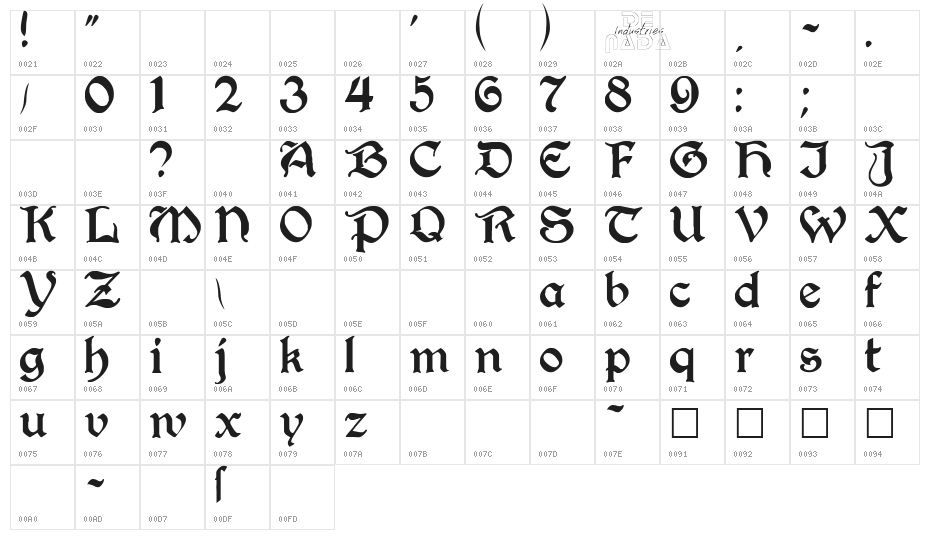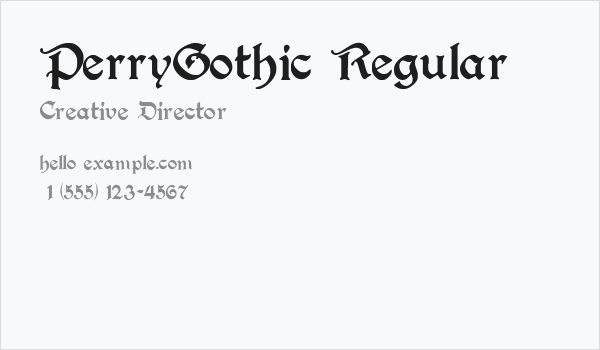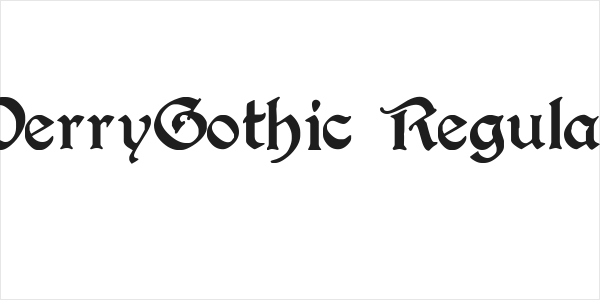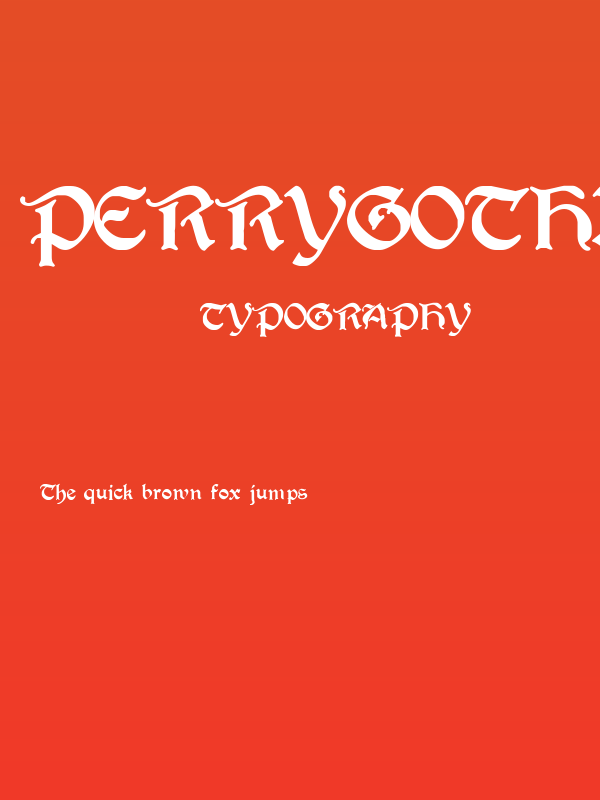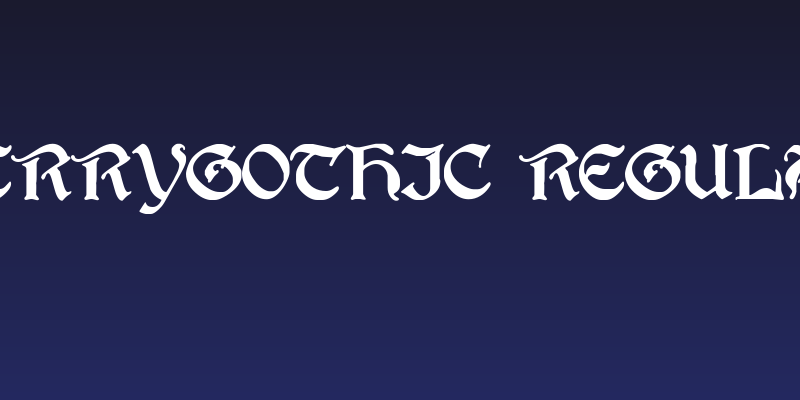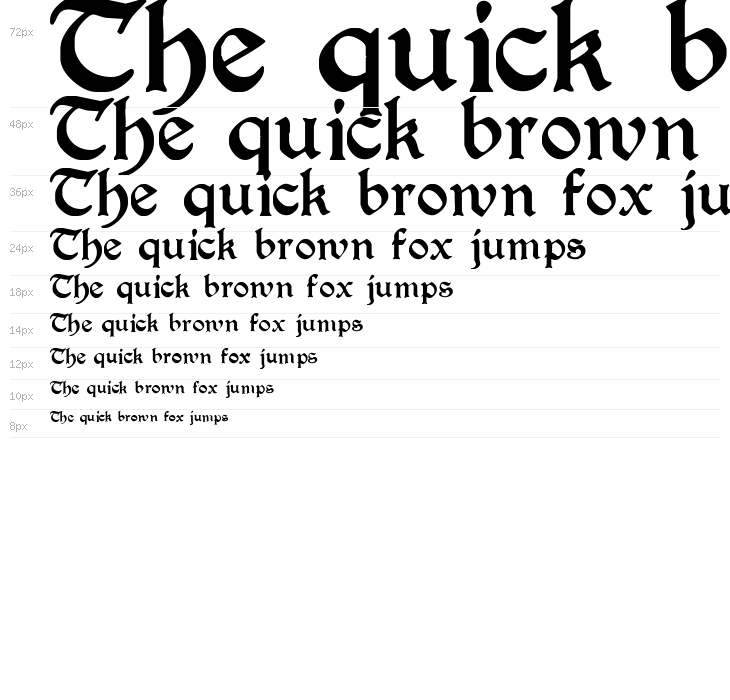
PerryGothic Regular Font
PerryGothic Regular Description
This font embodies a classic Gothic style with a modern twist, featuring sharp, angular serifs and a bold presence. The uppercase letters are particularly striking, with intricate detailing that adds a sense of elegance and historical depth. The lowercase letters maintain a consistent style, offering a harmonious balance with the uppercase set. Numbers are bold and clear, making them suitable for impactful displays. Special characters are designed with the same attention to detail, ensuring a cohesive look across all elements. The overall aesthetic is both traditional and contemporary, making it versatile for various design needs.
| Proposed Projects | Ideal for branding, posters, book covers, and any project requiring a dramatic, historical flair. |